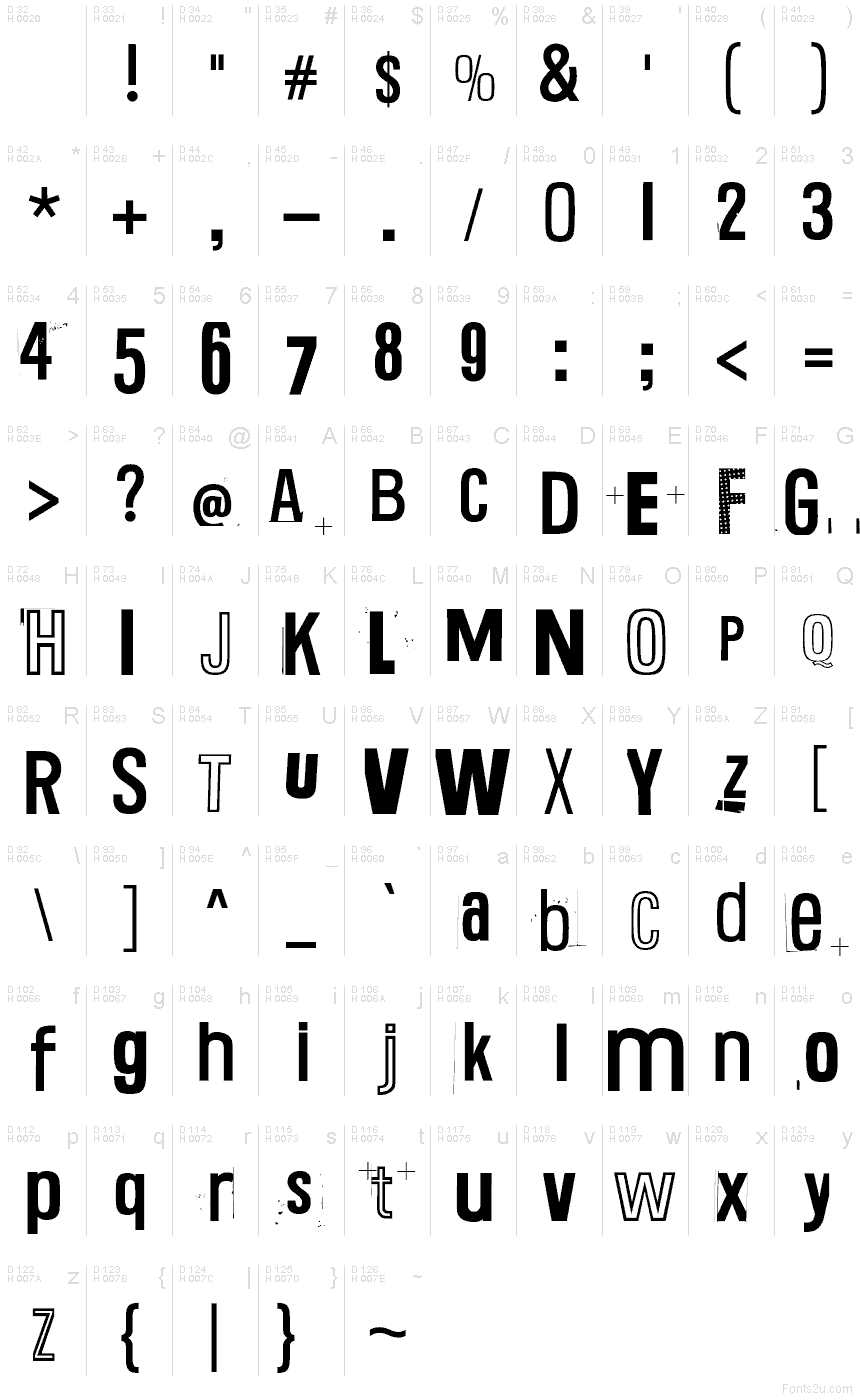
Whisper Zone Crown Delay Nonremittal Transaction Mosquito
Whisper Zone Crown Delay Nonremittal Transaction Mosquito font by Juha Korhonen is a free display font with a distorted design. Its modern and edgy style is somehow both loud and charming, making for one interesting type-style that’s not for the faint-hearted.
The font’s typical use cases are headers, headlines, posters, t-shirts, branding designs, album art covers, advertisements, book covers and pages. It can also be used in typography projects as well as other digital and print graphic designs.